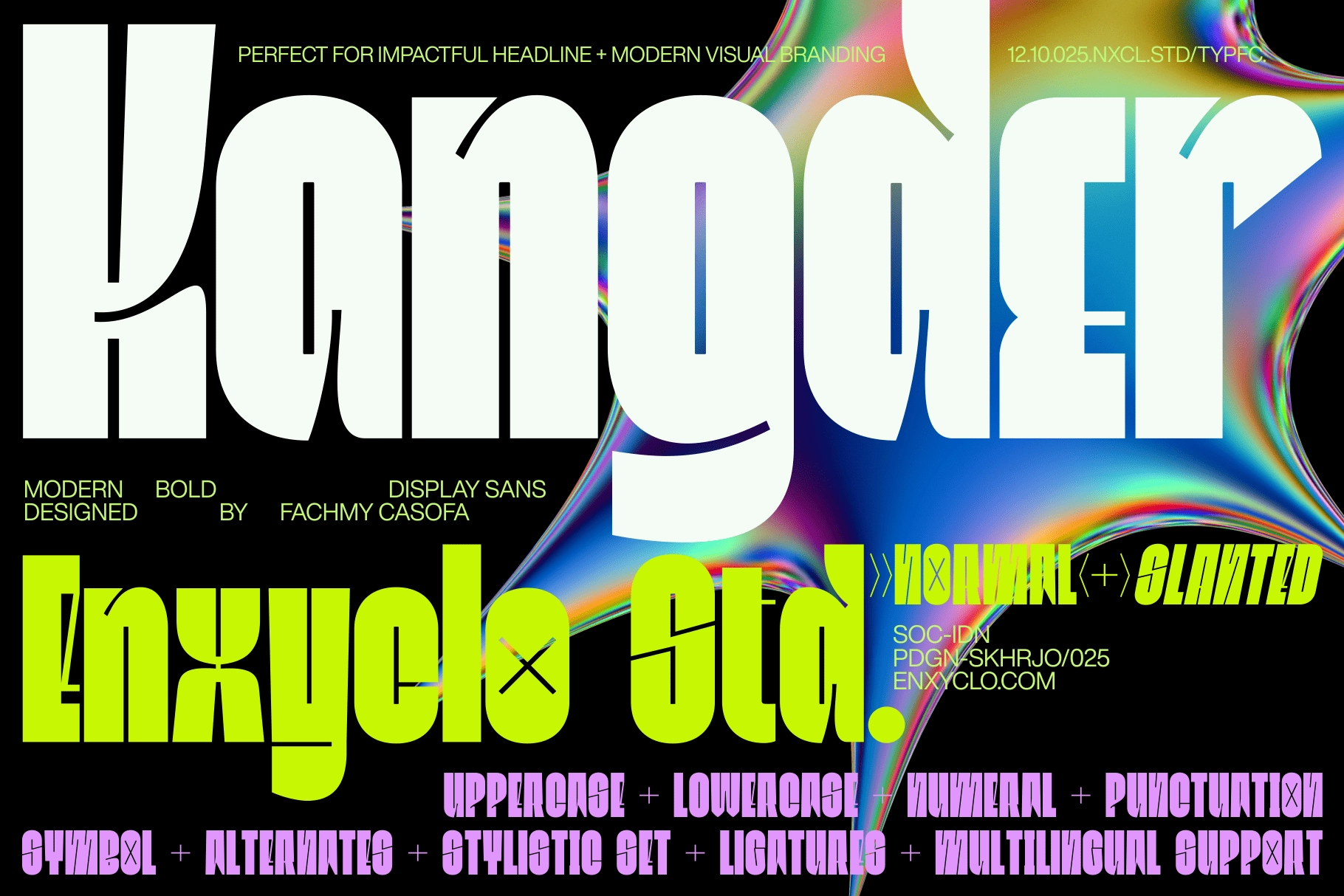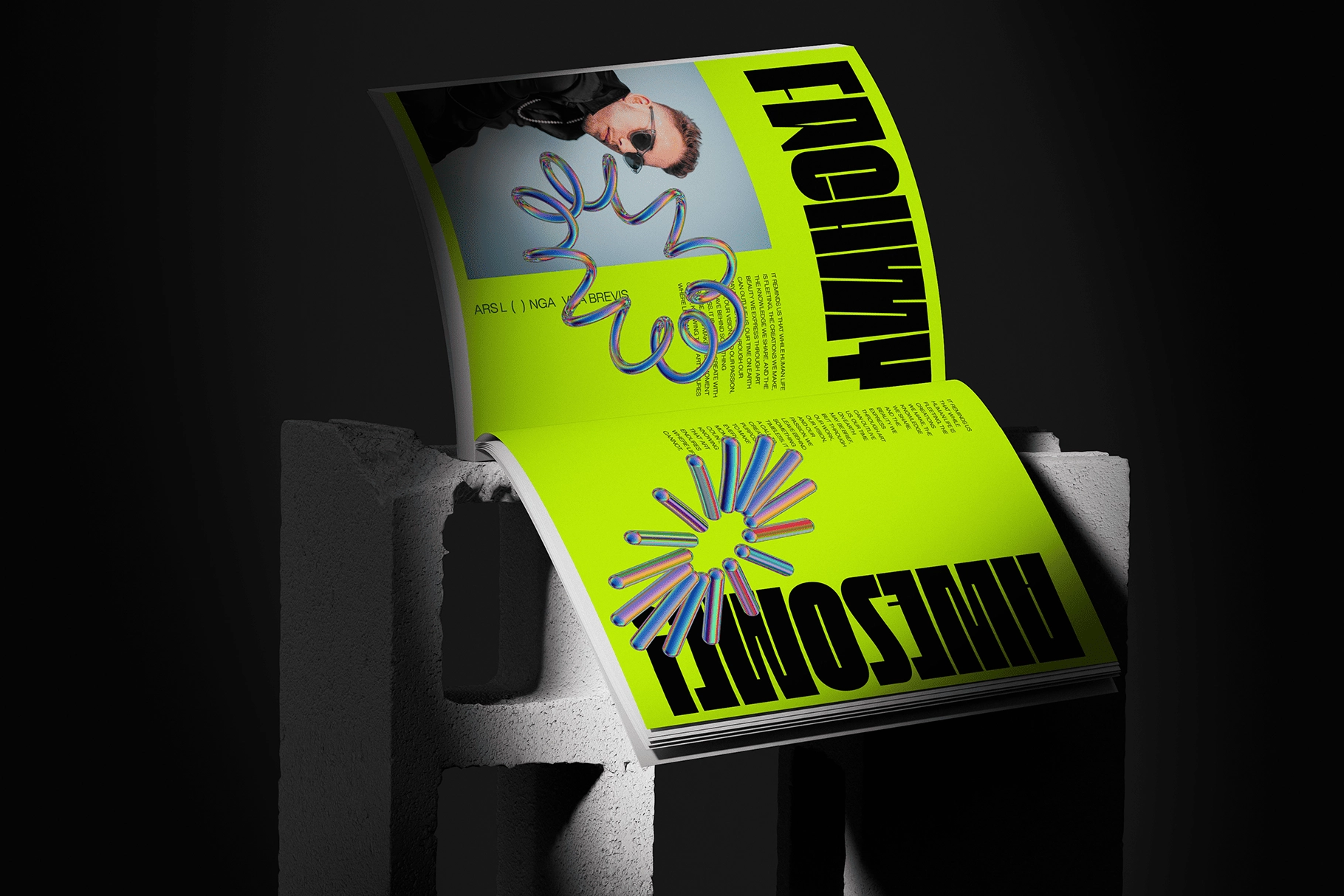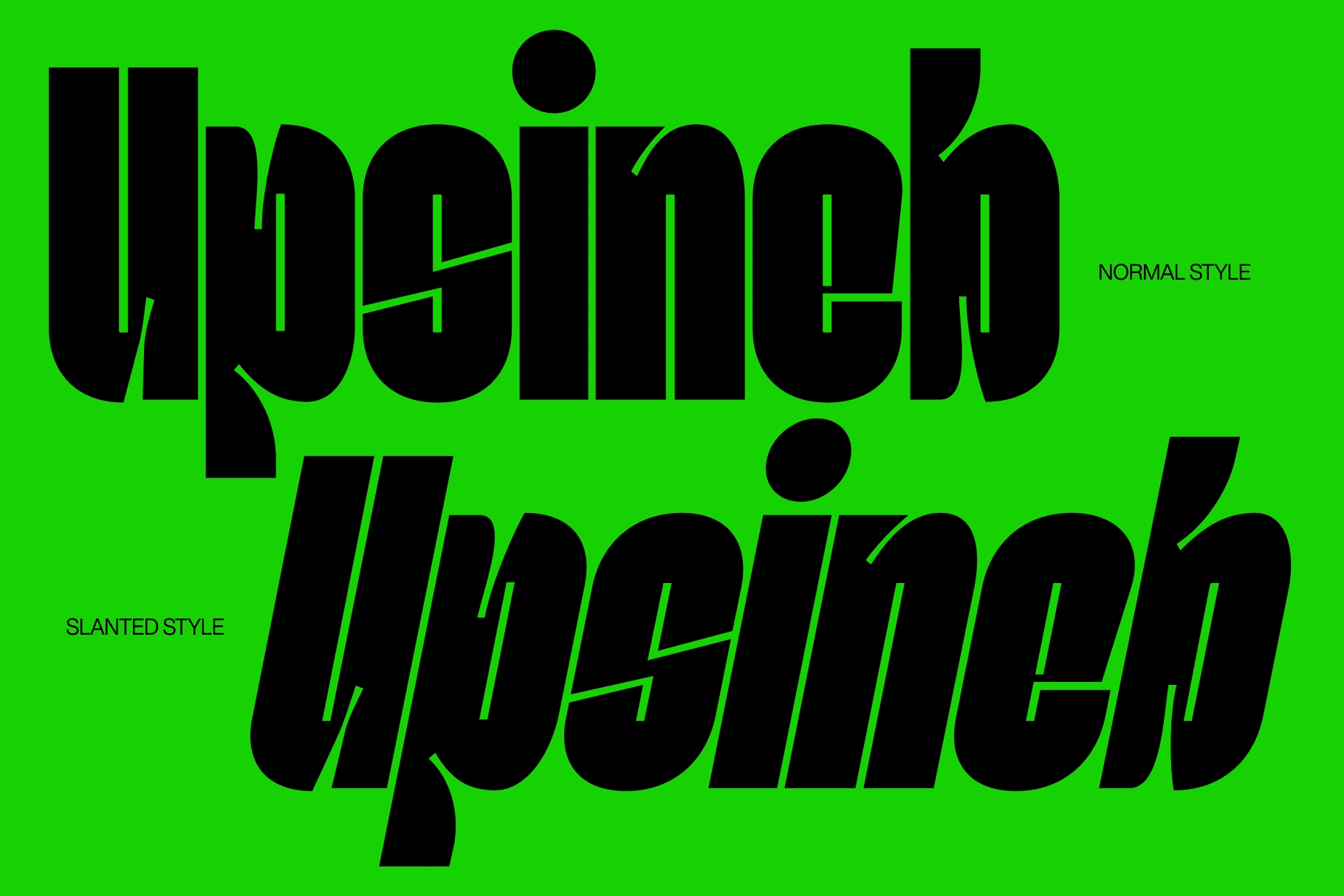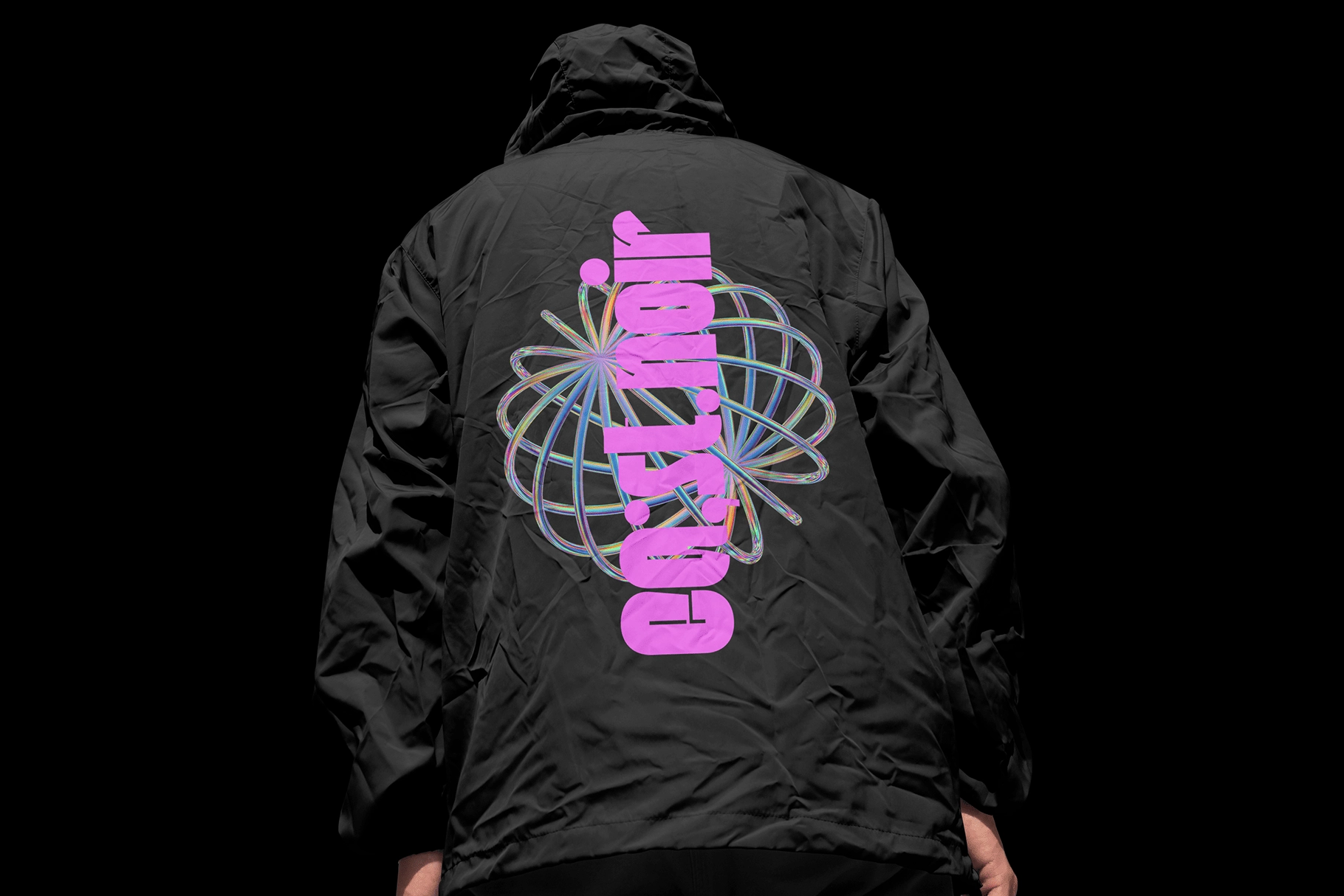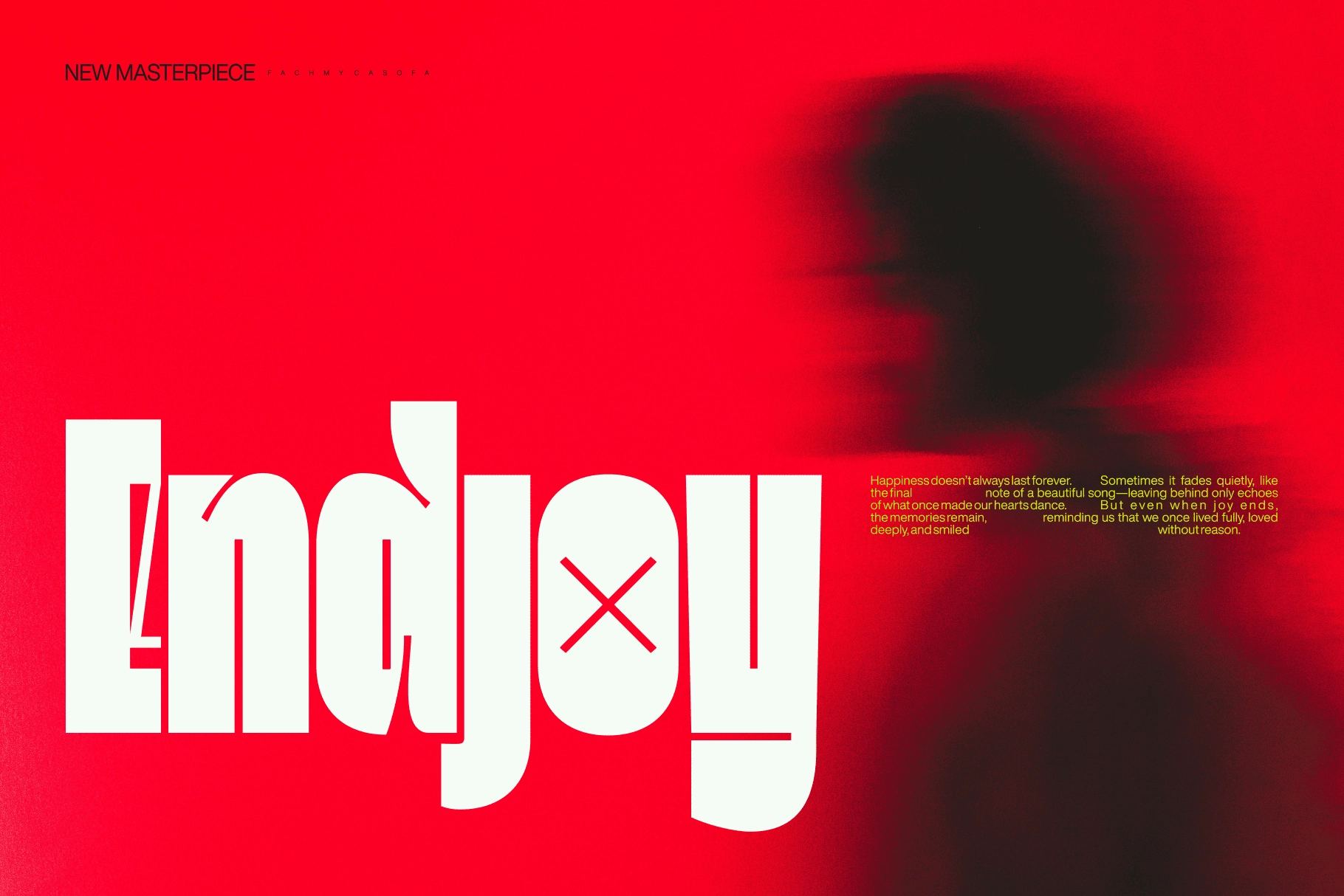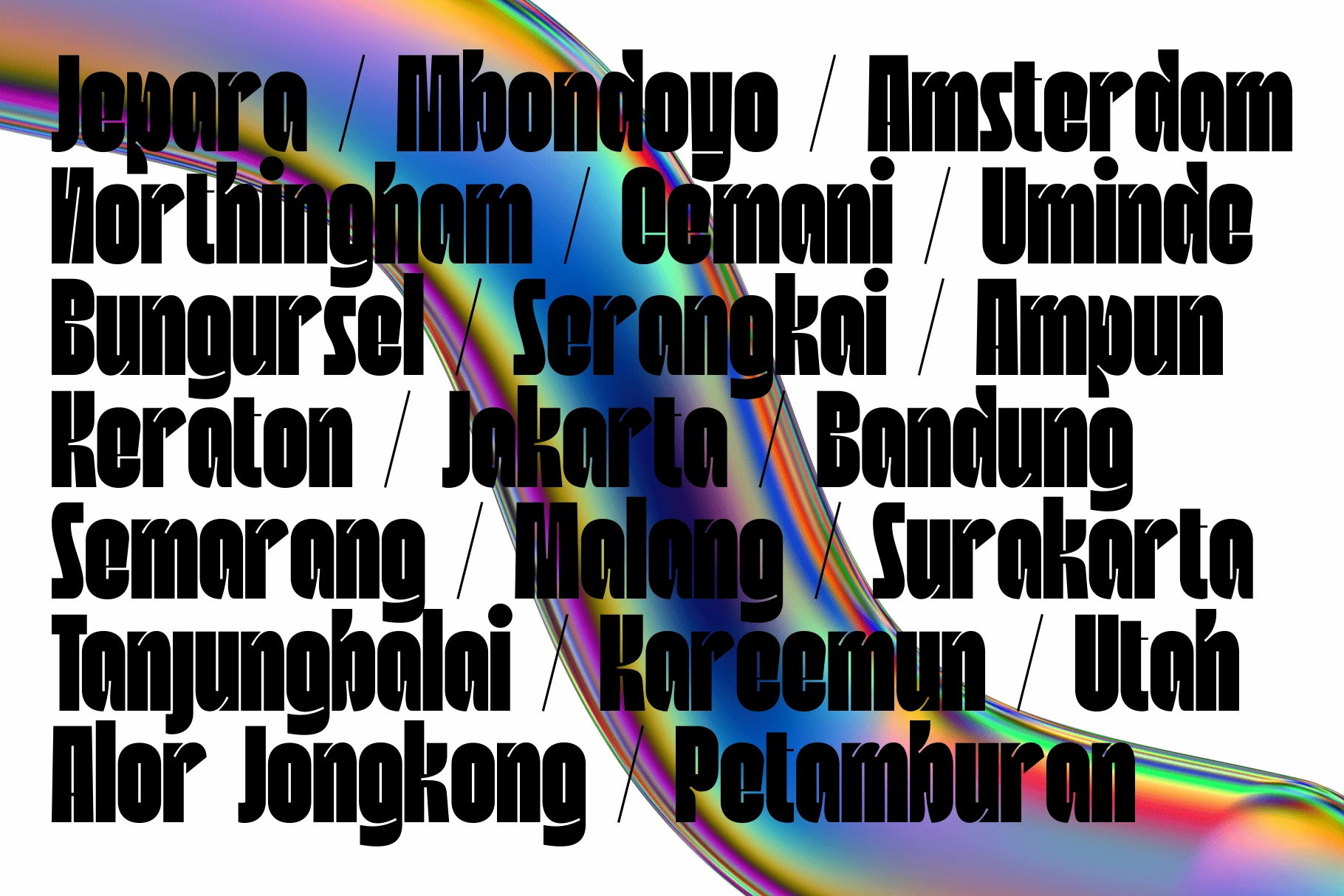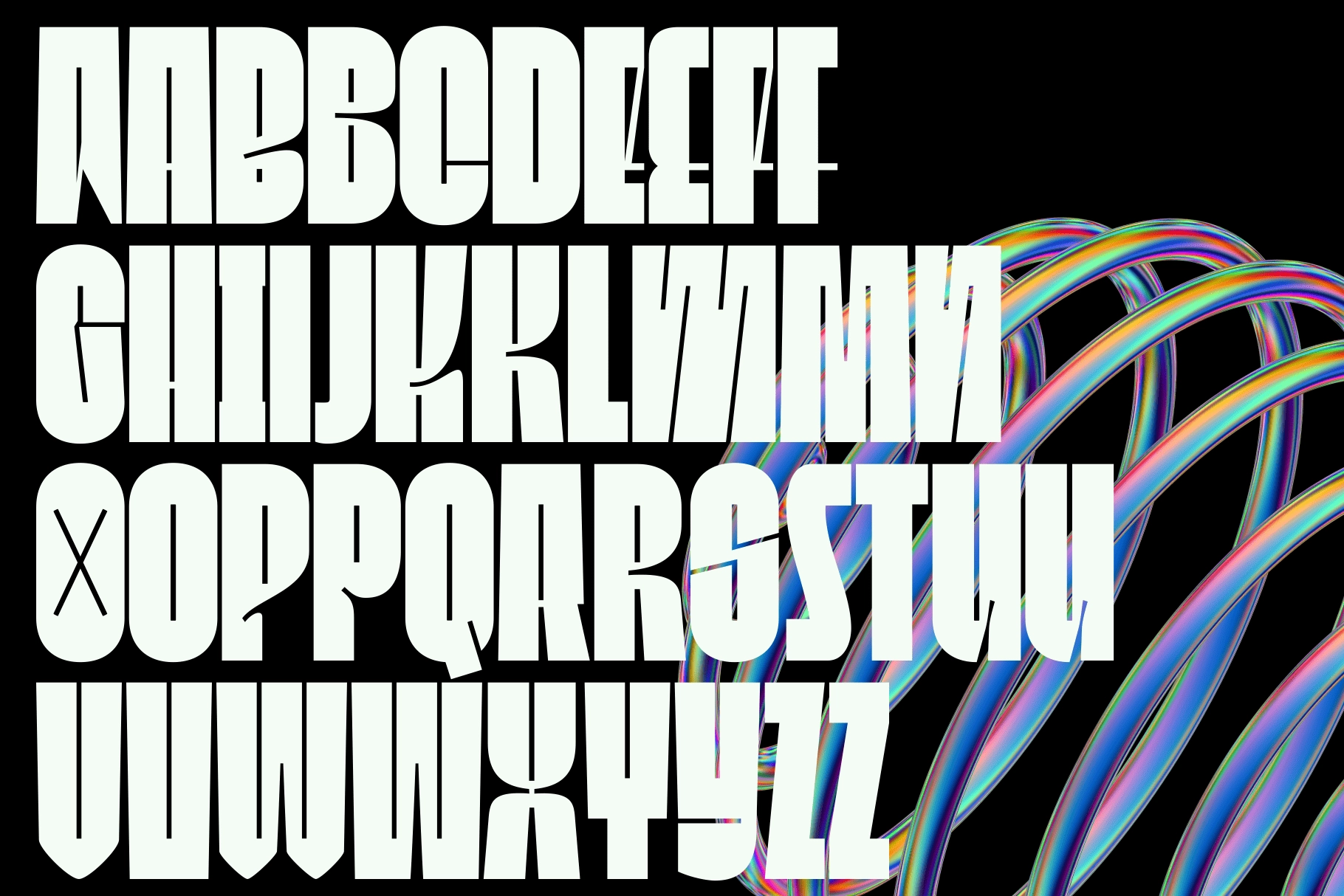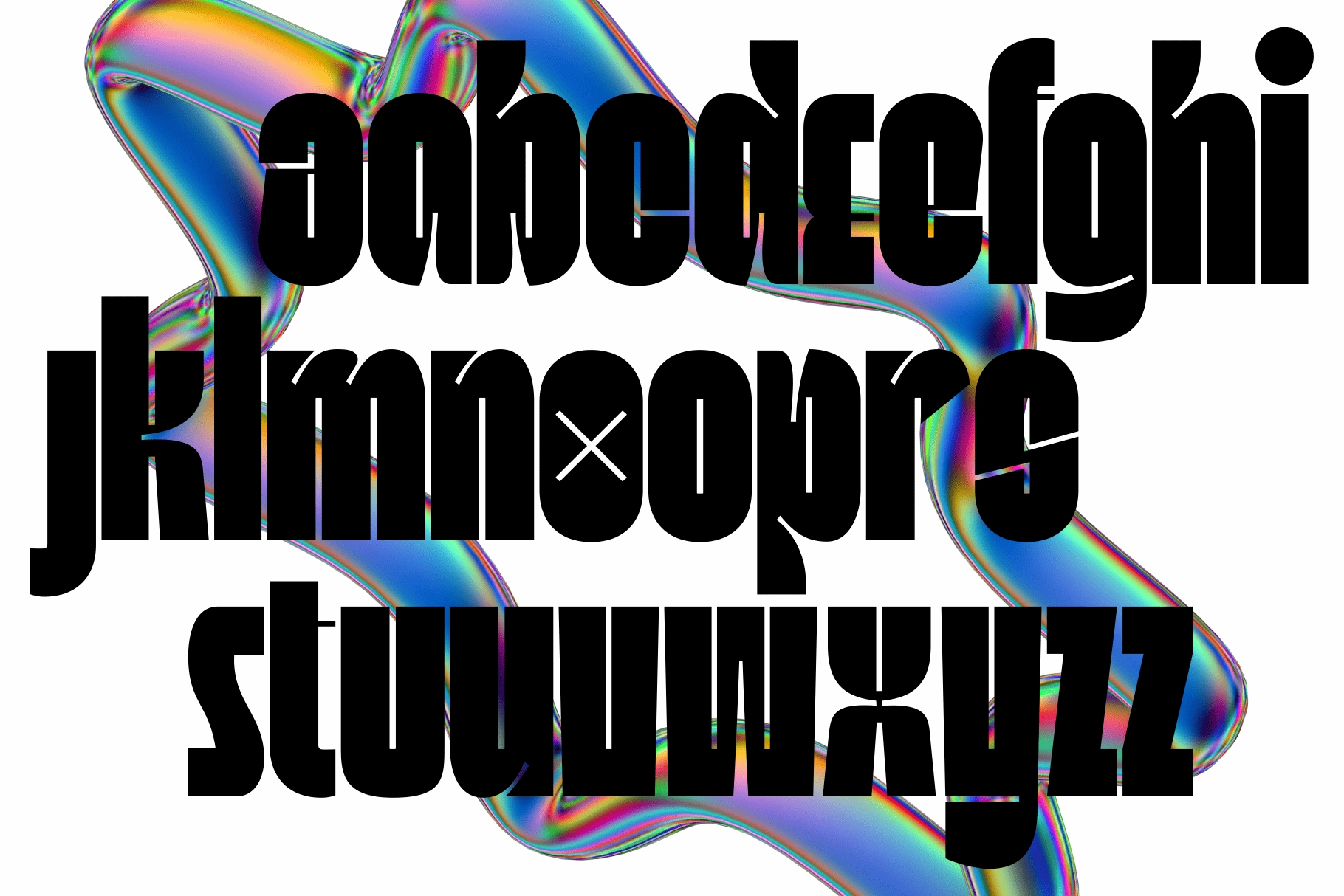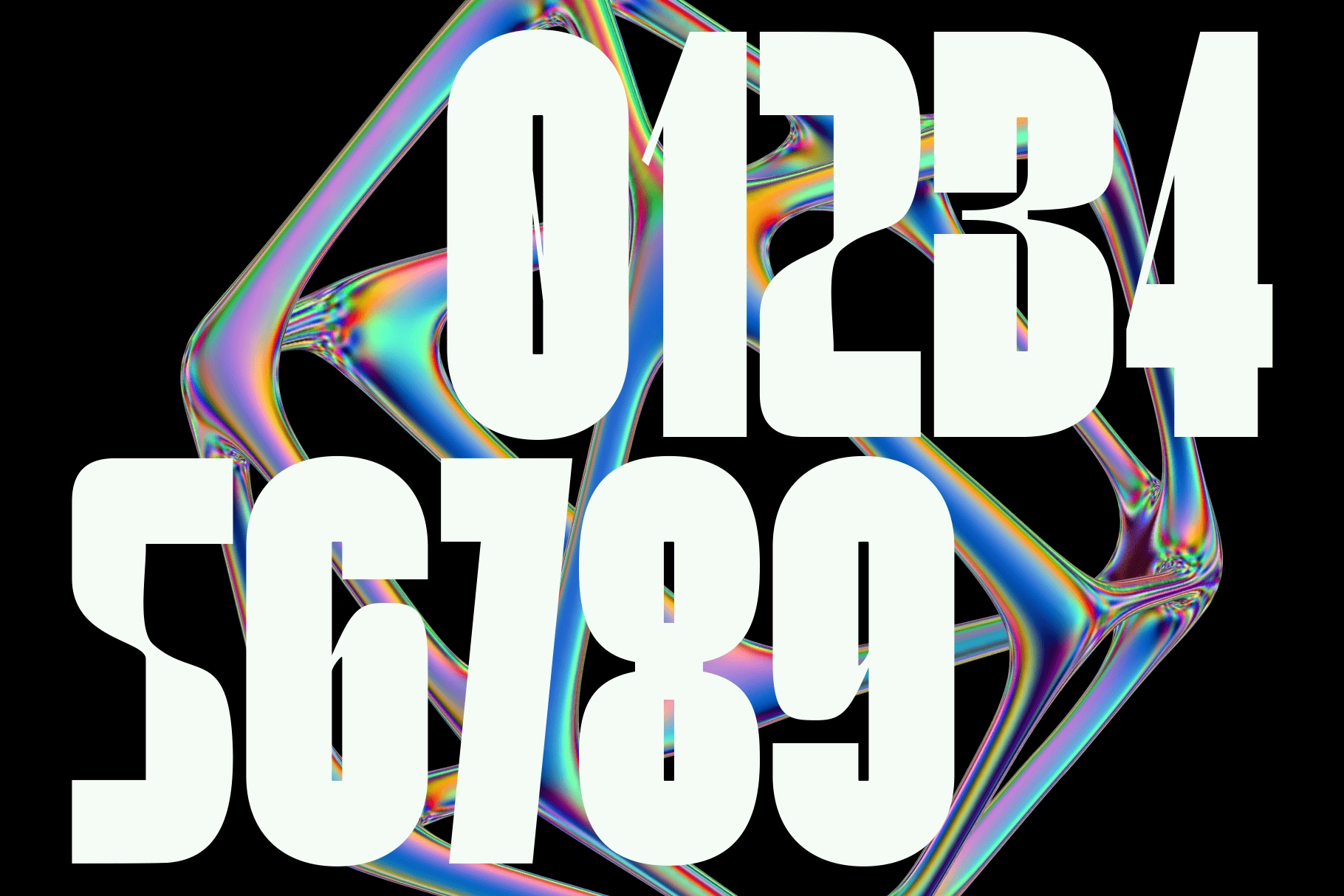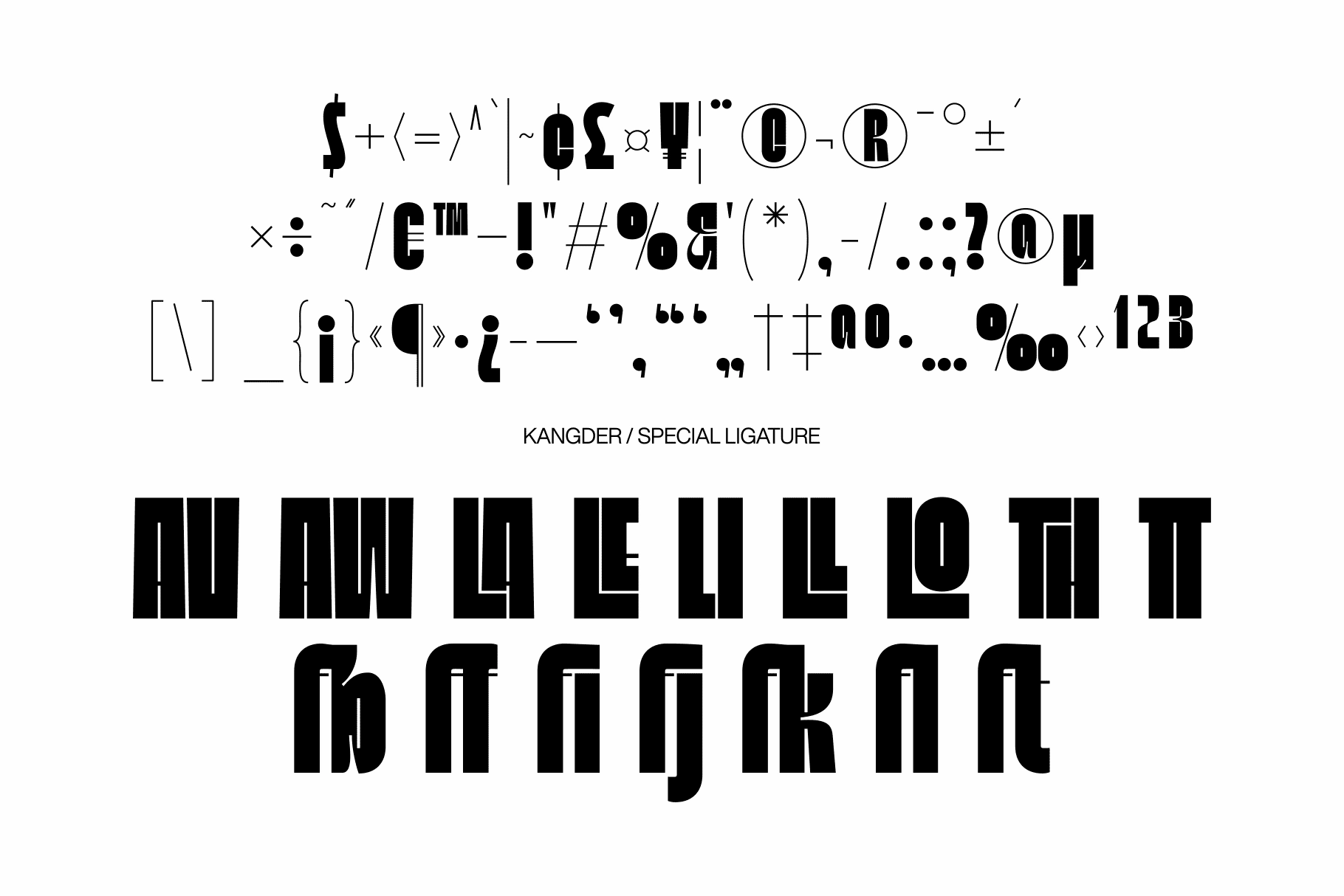
Kangder Bold Display Font
Kangder
Slanted
Kangder is a modern, bold display font designed to make a strong visual impact in any branding or design project. This typeface features striking, wide letterforms combined with sharp edges, delivering a contemporary look that grabs attention instantly. Ideal for logos, headlines, and display use, Kangder brings a fresh and confident vibe to your creative work. With its versatile style, Kangder is perfect for designers looking for a font that stands out while maintaining a clean and professional appearance. Whether for modern branding, impactful headlines, or bold visual statements, this typeface offers robust support for crafting memorable and distinct designs.
Feature:
- Modern, bold display typeface
- Two styles: Regular and Slanted
- Includes uppercase, lowercase, numerals, punctuation, and symbols
- Alternates and stylistic sets for customization
- Ligatures for enhanced typography flow
- Multilingual support for diverse applications
- Wide character set for versatile design use
Perfect for:
- Bold logos and brand identity
- Impactful headlines and posters
- Contemporary editorial and magazine layouts
- Packaging and advertising design
- Visual branding for startups and creative agencies
- Any project requiring a powerful modern typeface